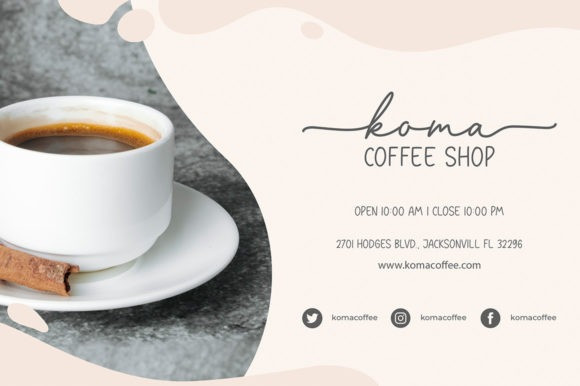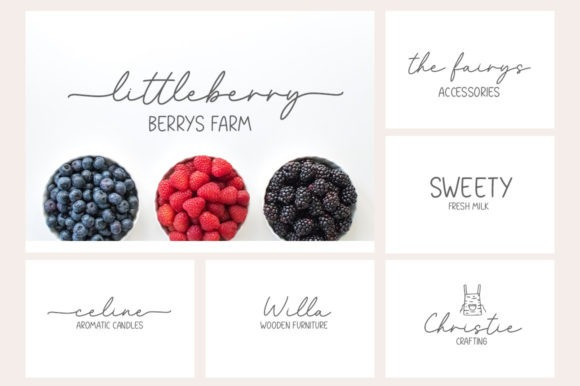
Little Farmhouse Font
Little Farmhouse consists of two fonts designed to complement each other perfectly. Together or apart, these fonts are ideal for adding a chic and cheery touch to your crafts. This font is PUA encoded which means you can access all glyphs and swashes with ease!